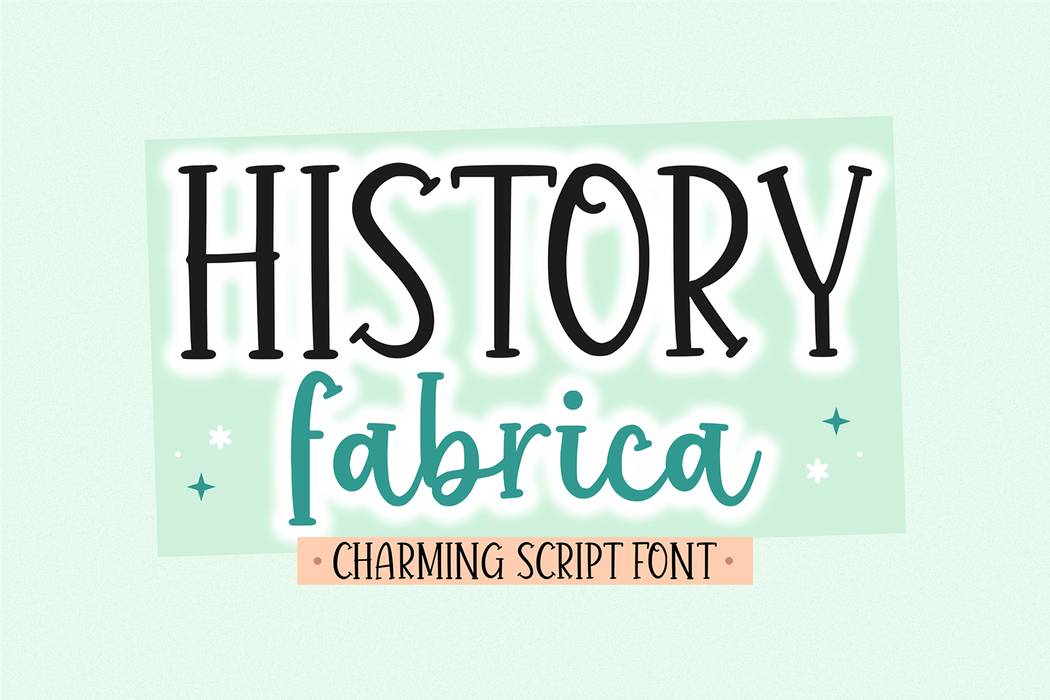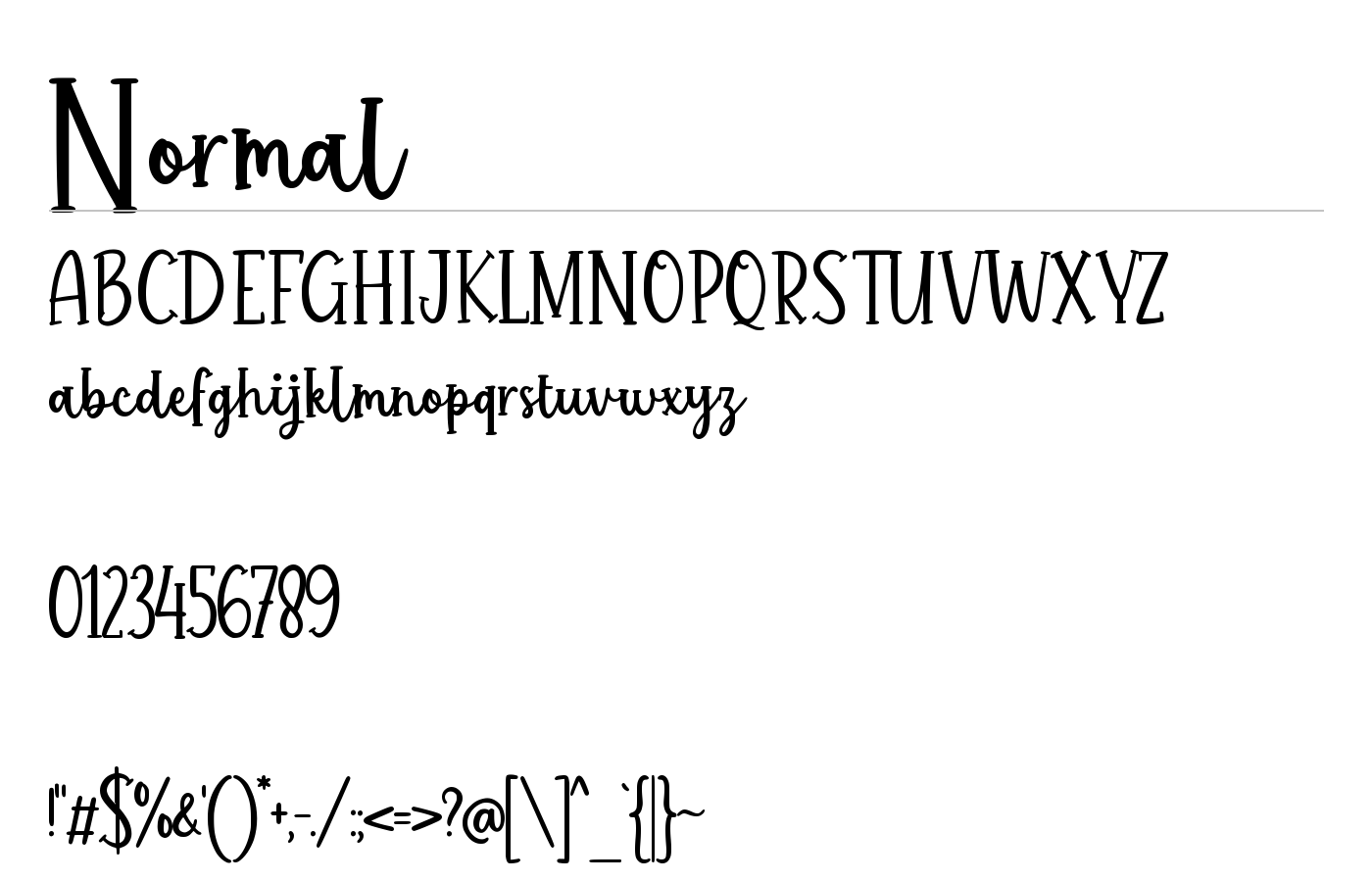
History Fabrica is a playful serif font with a whimsical, hand-drawn feel. Its tall, narrow letterforms with slight irregularities and delicate serifs give it a quirky yet elegant personality, making it ideal for creative projects that need a touch of charm and uniqueness. This font works well for headlines, invitations, and branding that seeks a friendly, vintage-inspired vibe without losing readability.
History Fabrica Font